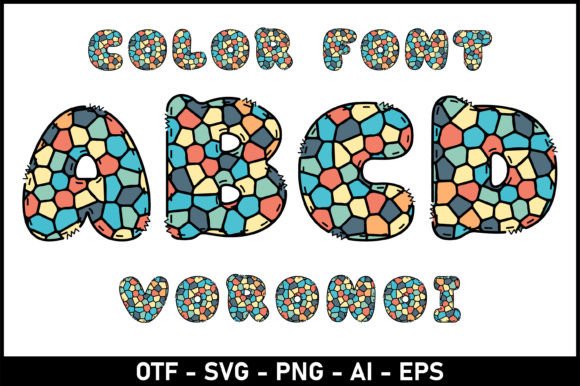
Voronoi Font: Unleash Creativity with Our Engaging & Playful Design
Embark on a typographic adventure with Voronoi Font, the ultimate font for evoking a joyful and artistic ambiance in your designs. This captivating font family, meticulously crafted by Veil, boasts a vibrant array of colors that ignite imagination and bring life to your creative visions.
Voronoi's playful nature makes it an ideal choice for children's books, injecting a sense of wonder and whimsy into every page. The colorful characters dance across the page, captivating young readers with their captivating presence. Educators and authors alike will appreciate the font's legibility, ensuring a smooth and enjoyable reading experience for children of all ages.
Beyond children's literature, Voronoi's versatility extends to a wide range of design applications. Create eye-catching posters that demand attention, design invitations that radiate warmth and charm, and craft greeting cards that leave a lasting impression. The possibilities are endless, as Voronoi's vibrant hues and playful spirit infuse every project with a unique personality.
- Retina Display Ready: Voronoi's sharp lines and vibrant colors render flawlessly on high-resolution screens, ensuring crisp and vivid visuals.
- Extensive Character Set: Explore a comprehensive range of characters, including uppercase, lowercase, numbers, and symbols, providing you with the flexibility to express yourself fully.